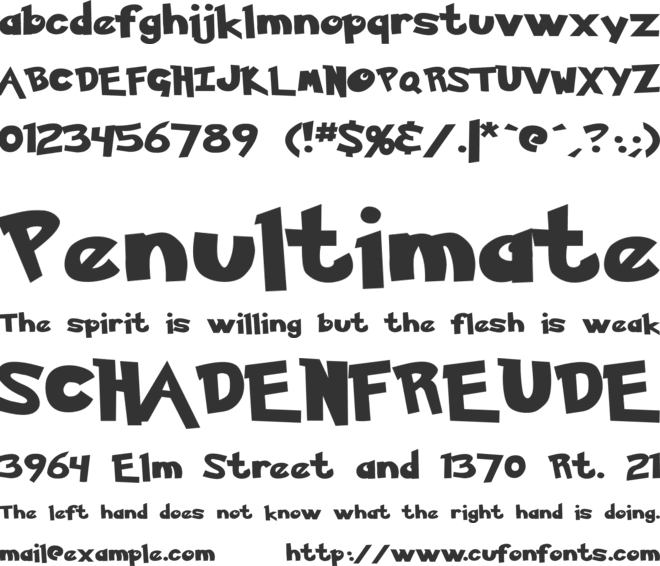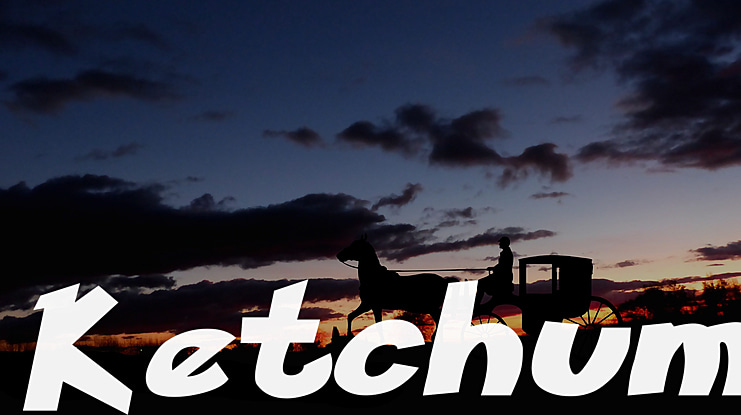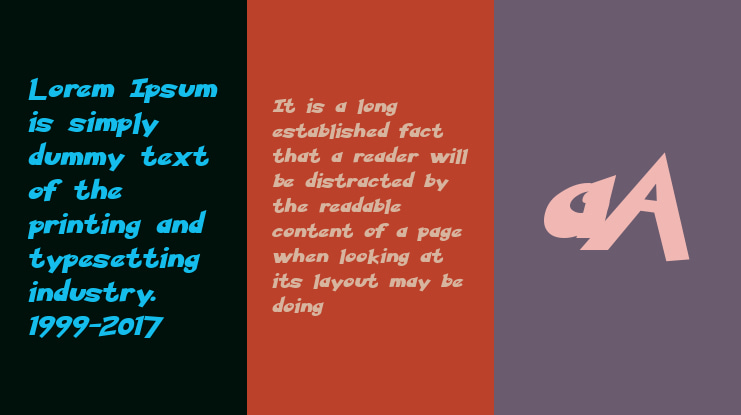
Ketchum Font Family
Neale Davidson
Ketchum is a kid-like decorative typeface based on the title logo of Nintendo’s “Pokemon” game and animation franchise. Includes full alphabet, numerals, extended punctuation and euro. Includes regular and italic versions.